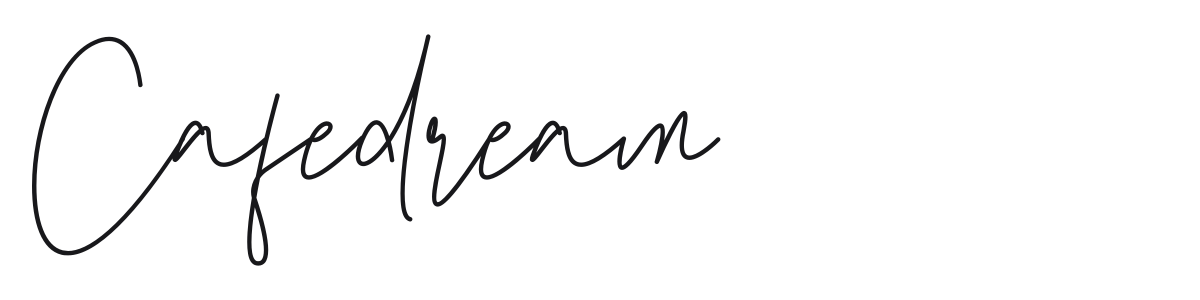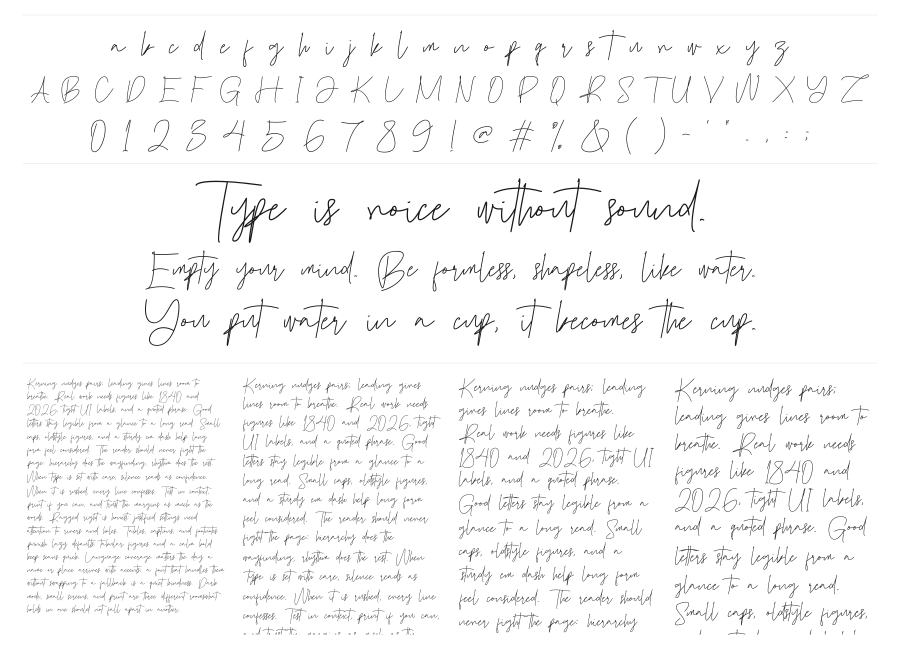
Cafedream
Cafedream is a thin, flowing casual script with long looping strokes and a breezy handwritten quality. The near-monoweight line keeps the design light and airy, with letters that connect in loose, spontaneous rhythms across the baseline. It reads best at large sizes where the delicate hairline strokes and extended loops can breathe.